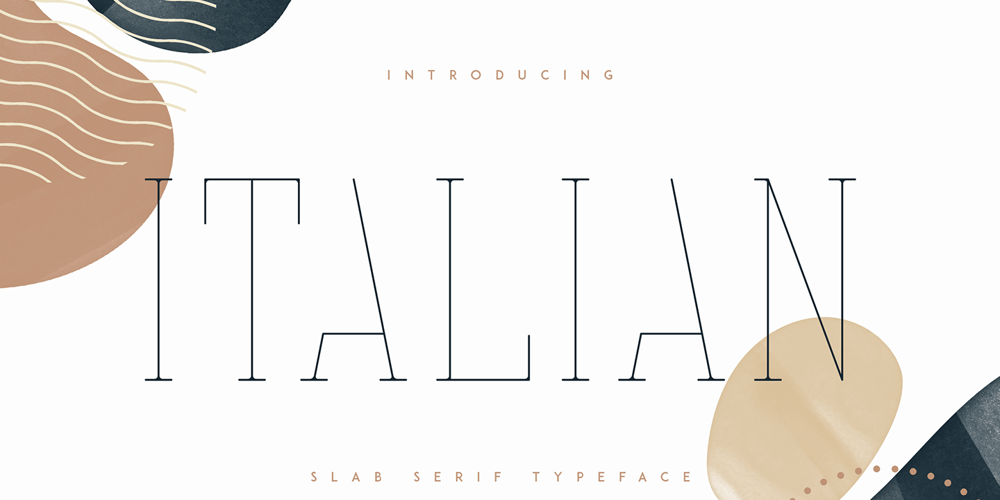
Italian VP Font Family was designed by Vladimir Fedotov, Plamen Petrov and published by VP Creative Shop. Italian VP contains 20 styles and family package options. ntroducing Italian Slab Serif Typeface – 24 fontsItalian is long, clean typeface with 24 fonts to enchant your next project. Added and 8 compositions and 15 elements in 4 premade colors. Very versatile fonts that works great in large and small sizes.Italian is perfect for branding projects, home-ware designs, product packaging, magazine headers – or simply as a stylish text overlay to any background image. Uppercase numeral, punctuation & Symbol Light Regular Medium Bold 3 styles Italics Multilingual support Feel free to contact me if you have any questions!Mock ups and backgrounds used are not included.Thank you! Enjoy!